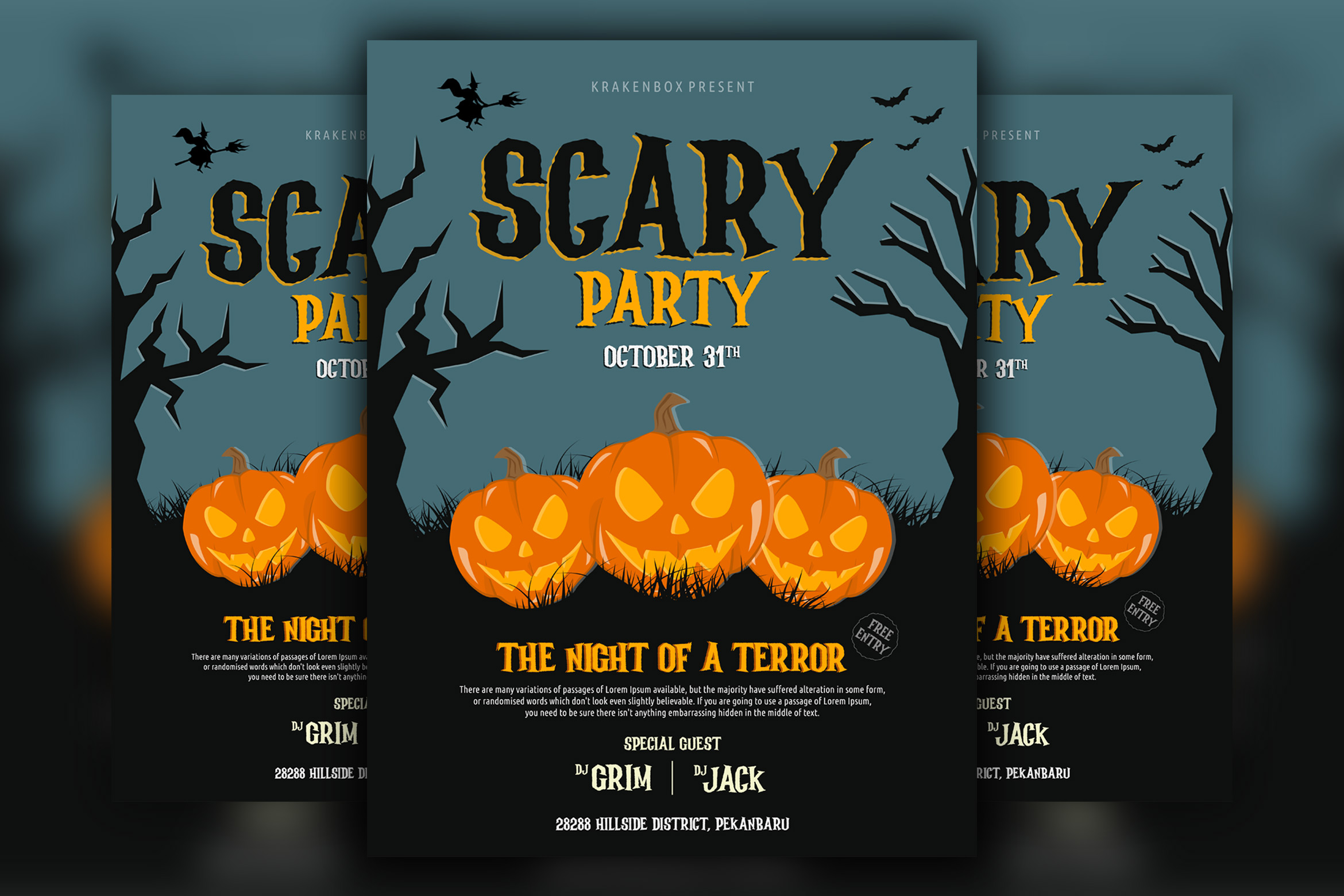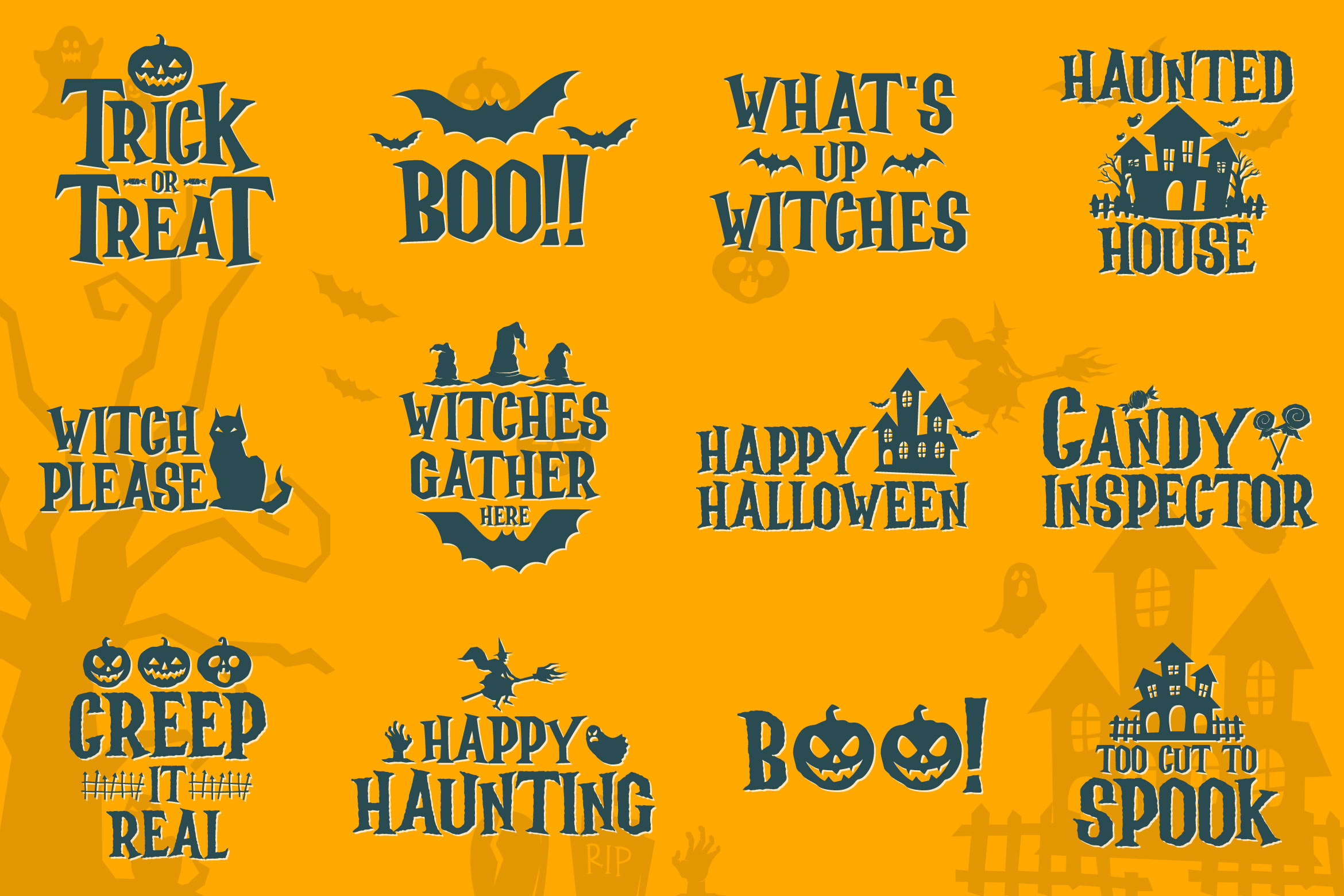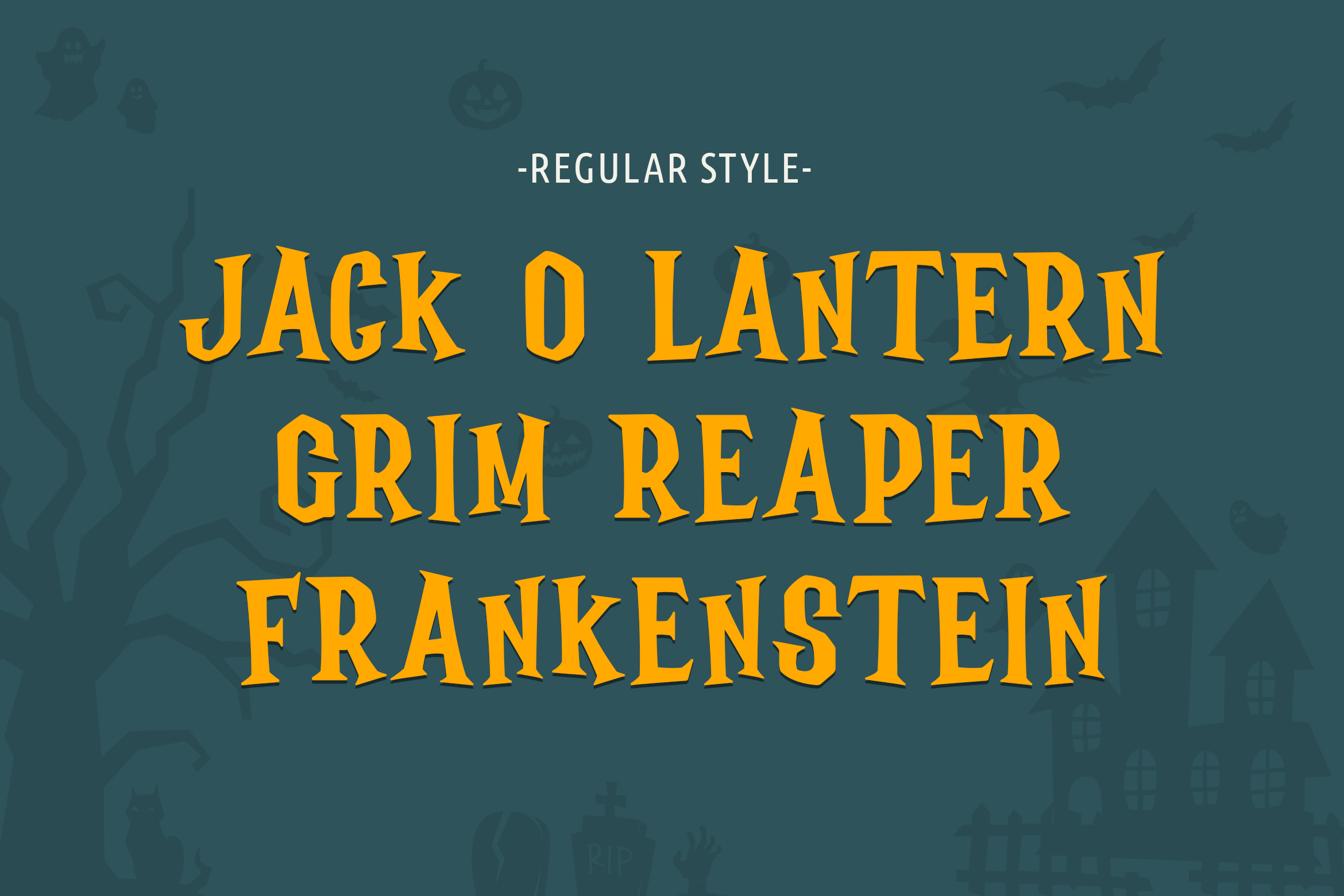
Spookyman Font
Spookyman Font is a halloween Font. It has spooky, mysterious, horror, classic. It’s a great font for events, halloween, fashion, apparel projects, signature, album cover, logo, branding, magazine, social media, & advertisements, but also works great for other projects.